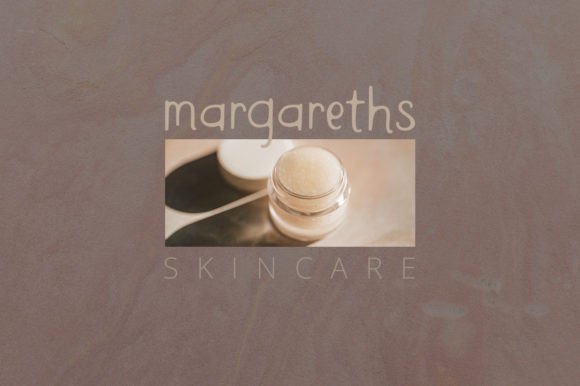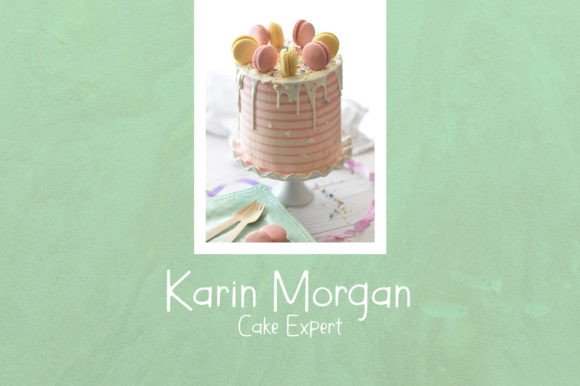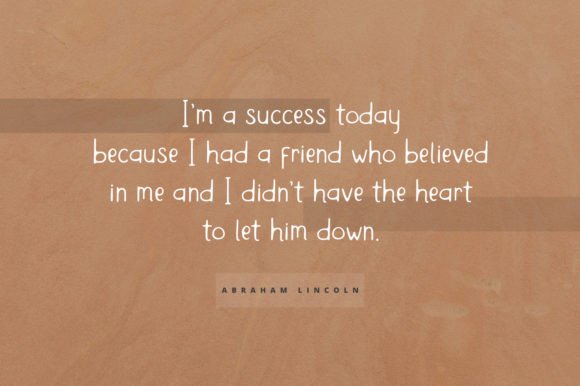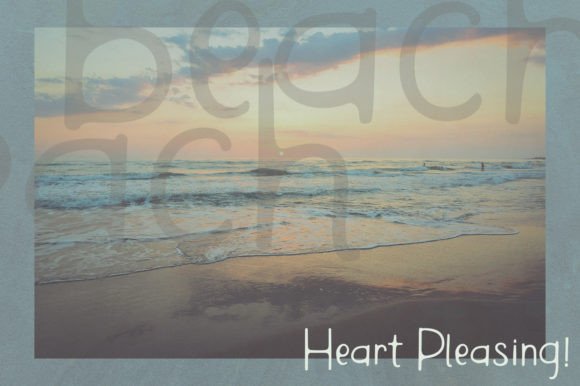
Introduction to Panoramind Font
Panoramind is a new display font with a natural, sweet, and simple style.
It is suitable to meet your various design needs that are trending now Add it to your font collection, and let it inspire you.
Key Features of Panoramind Font